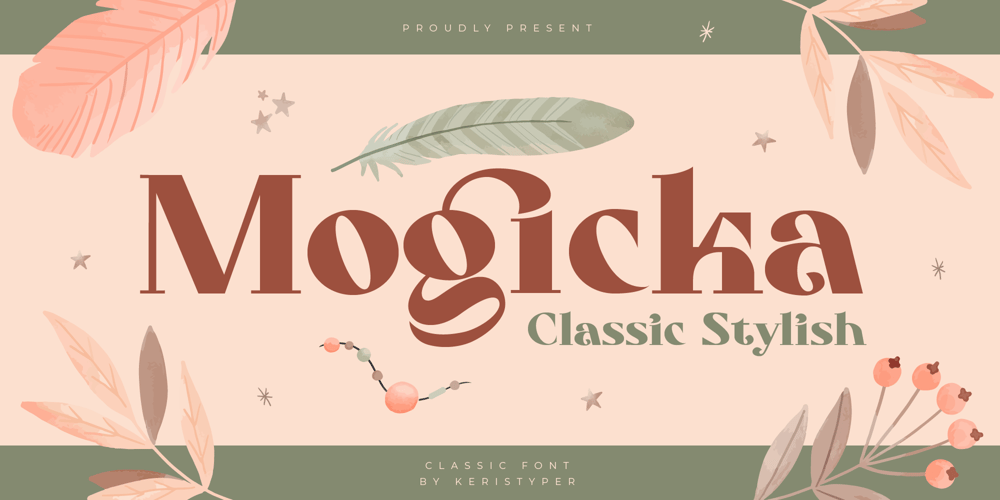
Mogicka Font Family was designed by Tezar Tantular and published by Keristyper Studio. Mogicka contains 1 styles and family package options. Mogicka is a classic bold serif font with a stylish shape, It has both a modern and retro look. This font is good for logo design, Social media, Movie Titles, Books Titles, short text even long text letters, and good for your secondary text font with sans or serif.Featured: Standard Uppercase & Lowercase Numeral & Punctuation Multilingual : ä ö ü Ä Ö Ü ß ¿ ¡ Alternate & Ligature PUA encoded We recommend programs that support the OpenType feature and the Glyphs panel such as Adobe applications or Corel Draw. so you can use all the variations of the glyphs.Hope you enjoy our fonts!